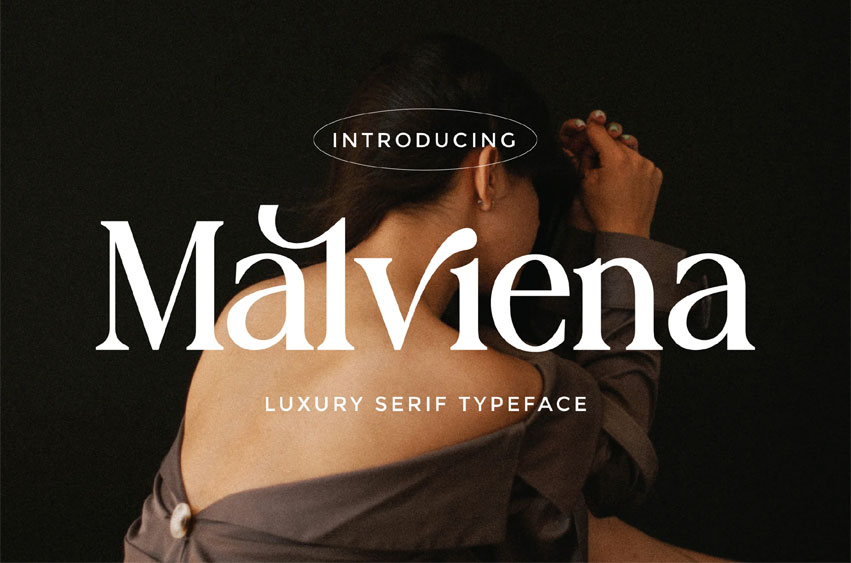
Malviena Font
Malviena Font is a luxury serif font that embodies sophistication, grace, and timeless beauty. Its elegant curves and refined details create a high-end look, perfect for brands that desire a touch of class and exclusivity. Designed with versatility in mind, Malviena is ideal for fashion branding, editorial design, invitations, logos, and packaging.
• Some Alternates and Ligatures
Malviena is more than a typeface—it’s a statement of class, crafted for designers who appreciate beauty in every detail.